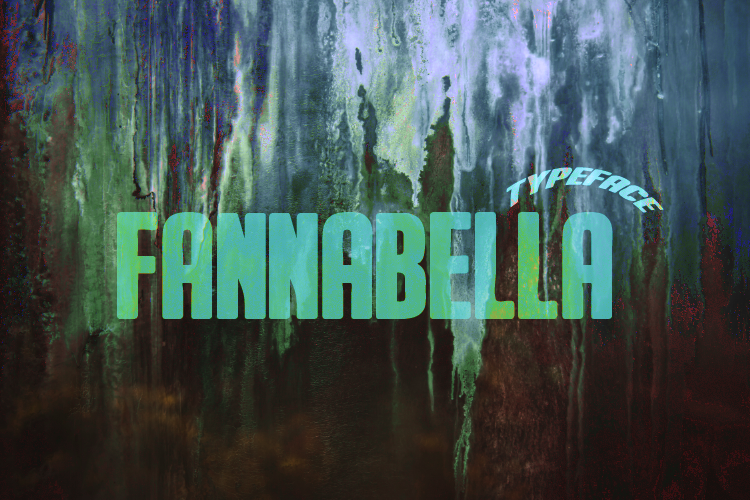
Preview and download Fannabella Font. Created by Shanaya Studio in Fancy Various styles with Free for personal use license.
Hello world, If you like using my font then I suggest giving a little donation to this small studio, thanks .. Link to purchase: https://fontbundles.net/shanaya Link to donation: https://paypal.me/wahysapt?locale.x=en_US FANNABELLA is a thick brush display font, it provides a level of detail that you can't get with traditional typography. Bold Font Brush This is a brush font with basic sans serif bold style. It will be perfect for posters, packaging, advertising, headlines, branding, signage, and whatever you want to look and feel in urban areas. Included: -FannaBella OTF&TTF -Upercase & Lowercase -Number & Funtions We hope you enjoy with this font. If you have any questions please don't hesitate to drop me a message :) Thank you, Shanaya |